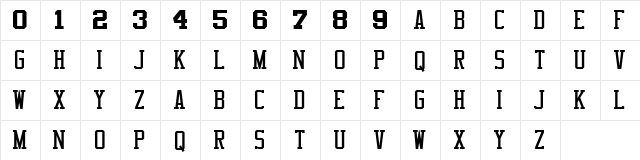
NBA Clippers Regular
Design Context for NBA Clippers Typeface
NBA Clippers is a composed and adaptable typeface that performs quietly and consistently across a wide range of design contexts.